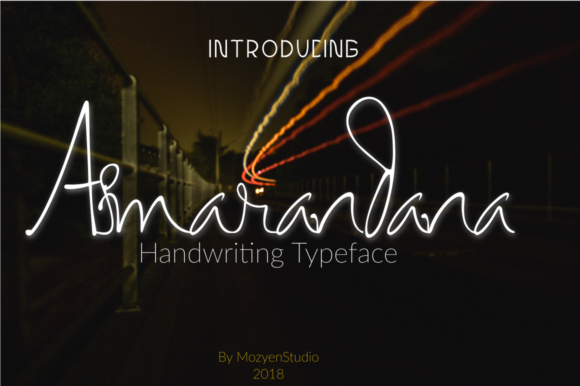
Introducing Asmarandana, the captivating handwritten script that will dance across your designs with elegance and grace. Its every curve and stroke exudes a timeless charm, enchanting your creations with an air of sophistication.
With Asmarandana as your ally, your designs will blossom into works of art. Envision magazine covers that captivate with their allure, invitations that whisper promises of unforgettable moments, and signatures that leave an indelible mark of your unique style.
Asmarandana's versatility knows no bounds. Its graceful dance transforms titles into mesmerizing focal points, adding a touch of whimsy to even the most mundane of tasks. Its free-flowing lines invite you to explore your creativity, crafting designs that leave a lasting impression on all who behold them.
But Asmarandana is more than just a font; it's a gateway to a world of emotions. Its expressive strokes evoke a symphony of feelings, from the delicate touch of a gentle breeze to the soaring passion of a heartfelt message.
With Asmarandana at your command, you'll effortlessly weave narratives that resonate with your audience. Each letter you pen will become a brushstroke on the canvas of your imagination, painting tales that captivate and inspire.
So, surrender to the allure of Asmarandana, let its captivating charm ignite your creativity, and watch your designs transform into masterpieces that speak to the heart and soul.